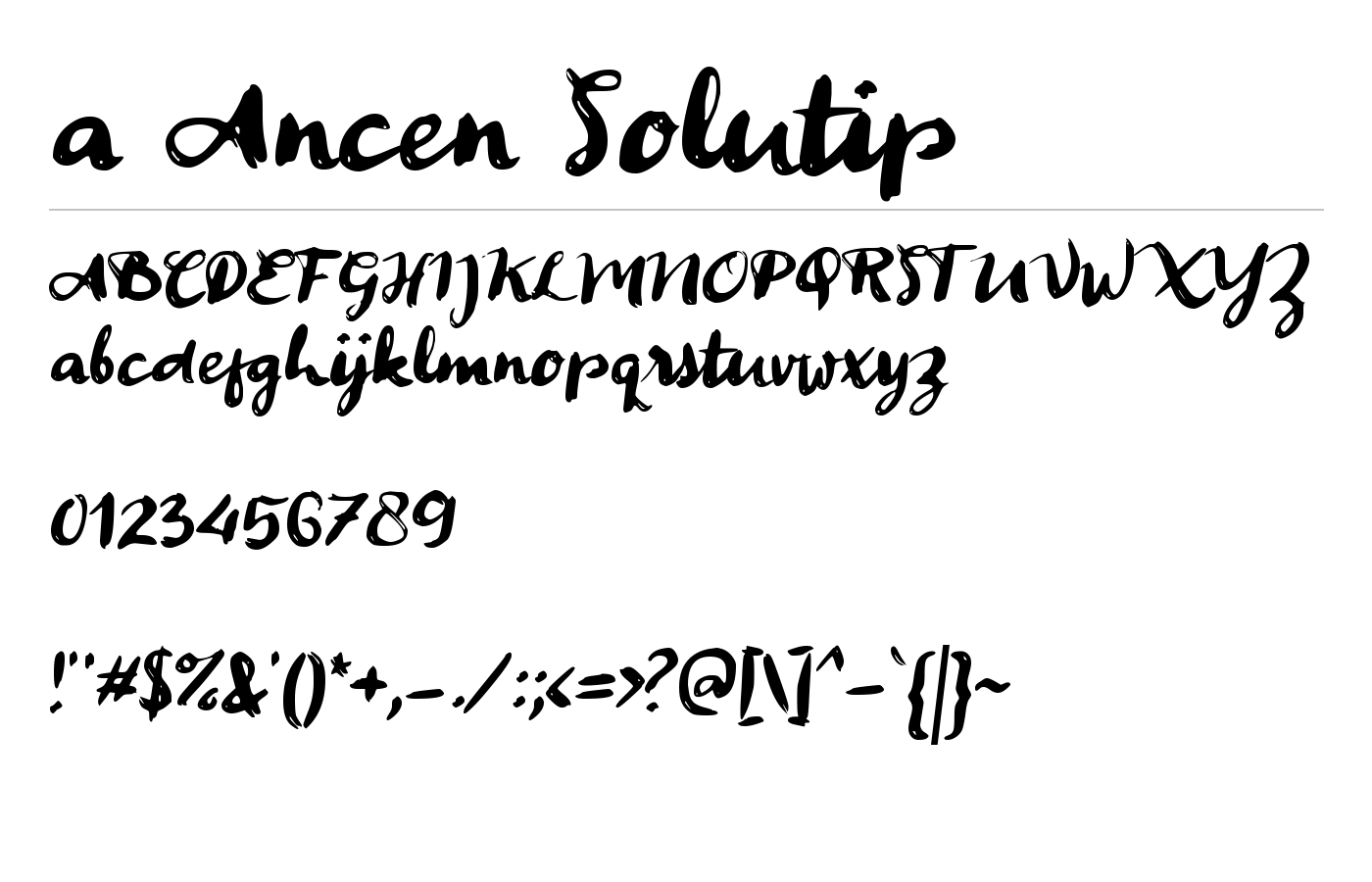
Ancen Solutip is a playful and expressive script font with a lively, hand-drawn feel. Its bold strokes and irregular shapes give it an energetic and informal vibe, making it ideal for creative projects, casual branding, and artistic designs that seek a personal touch. This font shines in headlines, logos, and packaging where a fun, distinctive style is desired.
a Ancen Solutip Font
About a Ancen Solutip Font